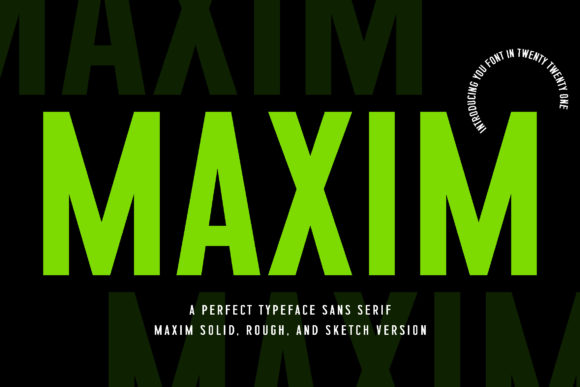
Step into the world of Maxim Font, a masterpiece of bold and captivating display typography, crafted by the masters at Fontherapy, just for you. Immerse yourself in its streets-inspired aesthetic, embracing the vibrant energy of urban art. Experience the raw power of Maxim Font, a font family that demands attention.
With its striking letterforms and dynamic curves, Maxim Font is the ultimate choice for creating designs that leave an indelible mark. Its bold presence commands attention, making it perfect for a diverse range of applications—from t-shirts and sportswear to logos and advertisements.
Imagine your designs bursting with energy and attitude, infused with Maxim Font's unique charm. Create clothing that exudes personality, with lettering that pops and demands attention. Let Maxim Font elevate your branding, crafting a logo that embodies your values and resonates with your audience.
Maxim Font's versatility is a designer's dream. Its bold and confident style effortlessly elevates any project, from eye-catching posters to captivating social media graphics. Its distinct character adds a touch of edginess and originality, making your designs stand out.
But Maxim Font is more than just a collection of letters; it's an expression of individuality, a reflection of your creative vision. Unleash your inner artist and let Maxim Font ignite your imagination. Its limitless possibilities will empower you to create designs that captivate, inspire, and leave a lasting impression.
Join the ranks of creative professionals who have discovered the transformative power of Maxim Font. Embrace its bold and rebellious spirit, and watch your designs take on a life of their own. Unleash the potential of Maxim Font today and witness the magic unfold.